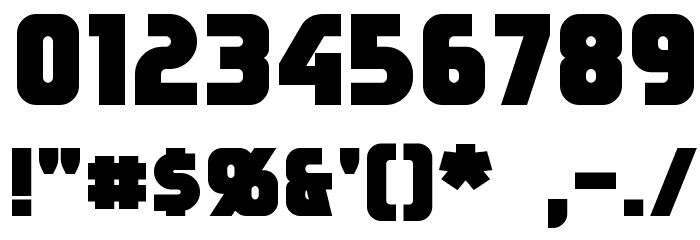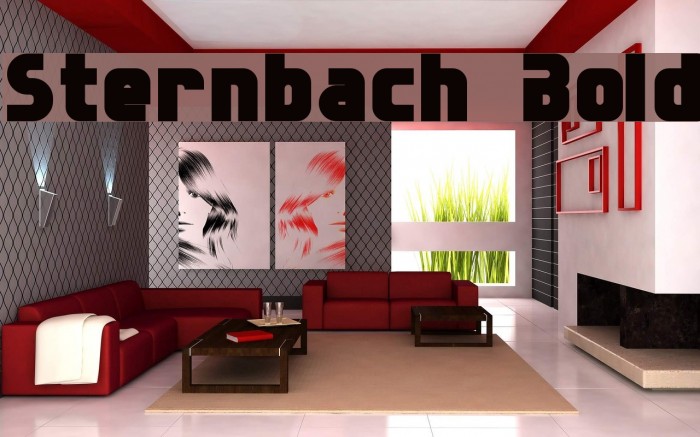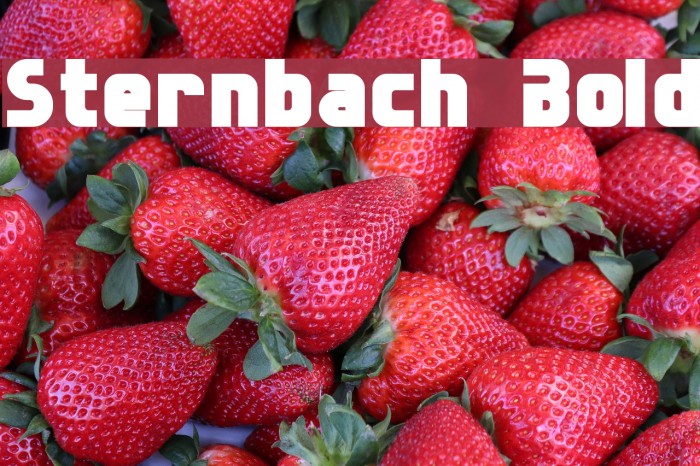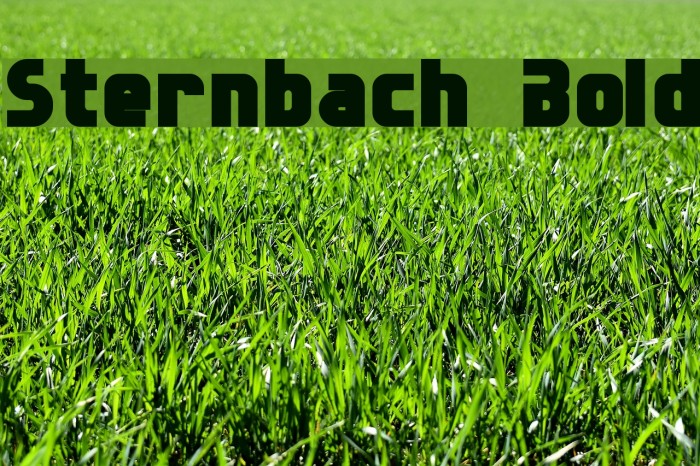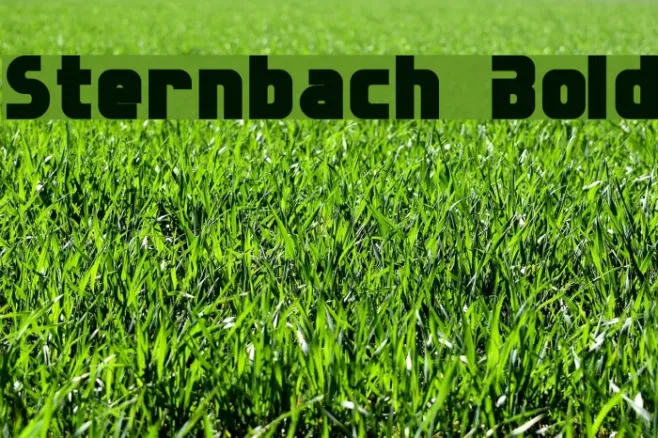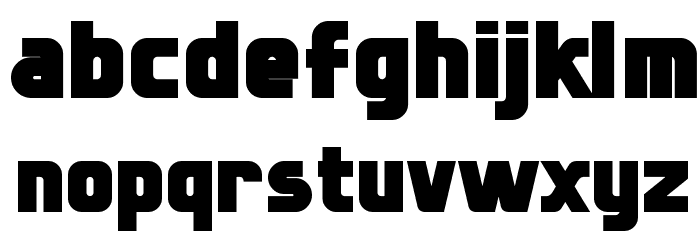
Sternbach Bold Font
Sternbach Bold Description
This bold and striking font features a geometric and blocky design, characterized by its strong, thick strokes and angular shapes. The uppercase letters are particularly bold, with a uniform thickness that gives them a powerful presence. The lowercase letters maintain the same boldness, ensuring consistency across the typeface. The numbers are equally robust, making them stand out with clarity. Special characters are designed with the same bold aesthetic, ensuring they integrate seamlessly with the rest of the font. The overall style is modern and assertive, making it ideal for attention-grabbing headlines or impactful logos.